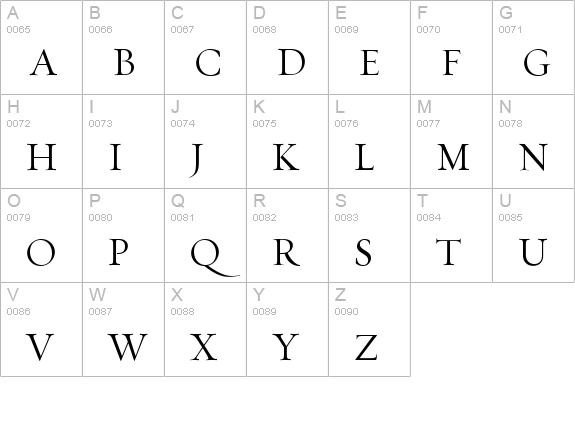
RequiemDisplay-HTF-Roman Font Details
RequiemDisplay-HTF-Roman is a stunning and elegant font that is sure to make a statement in any design project. Its sleek and sophisticated letterforms exude a sense of timeless beauty, making it perfect for a wide range of applications, from branding and advertising to editorial design and typography. This font's carefully crafted strokes and delicate curves give it a sense of grace and refinement, while its bold and strong presence commands attention. Whether you're creating a logo, a magazine layout, or a wedding invitation, RequiemDisplay-HTF-Roman will add a touch of class and sophistication to your design. What makes RequiemDisplay-HTF-Roman even more appealing is that it is freely available to download at FontsMarket.com. This means that you can easily access this beautiful font without any cost, making it an ideal choice for designers on a budget or anyone looking for high-quality typography without breaking the bank. With RequiemDisplay-HTF-Roman, you have the opportunity to create stunning and professional designs without compromising on style or quality. Its versatility and elegance make it a valuable addition to any designer's toolkit, and its availability as a free download at FontsMarket.com ensures that everyone can enjoy its beauty and functionality. So why wait? Download RequiemDisplay-HTF-Roman today and elevate your designs to a whole new level of sophistication and visual appeal. Whether you're a professional designer or a hobbyist, this font is bound to make a lasting impression and leave a lasting impact on your audience.